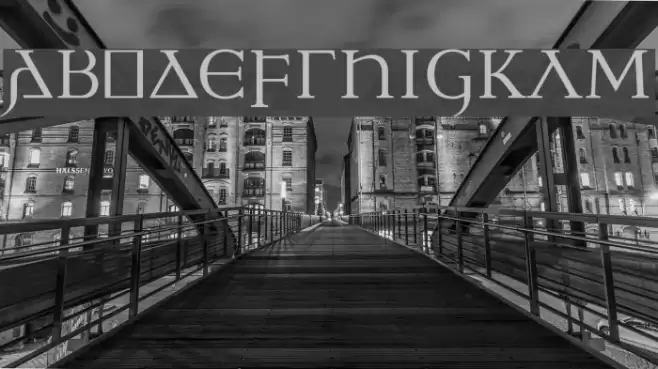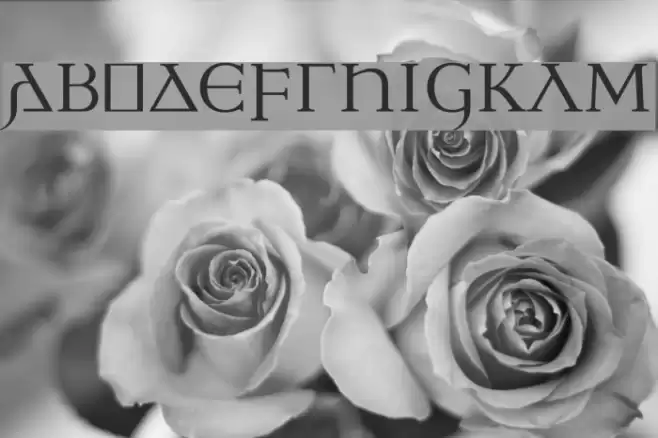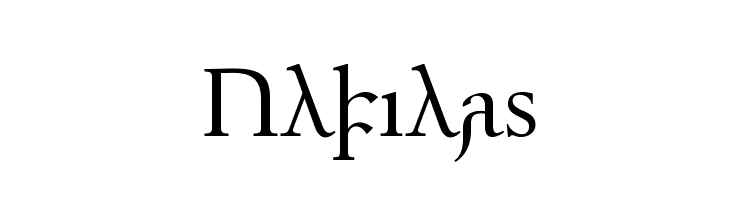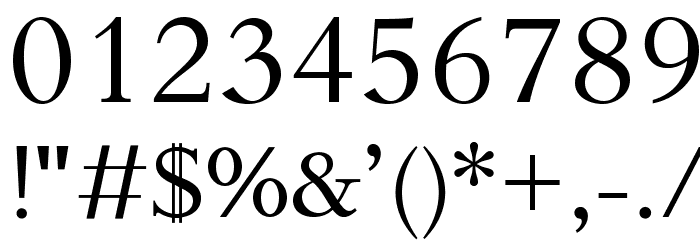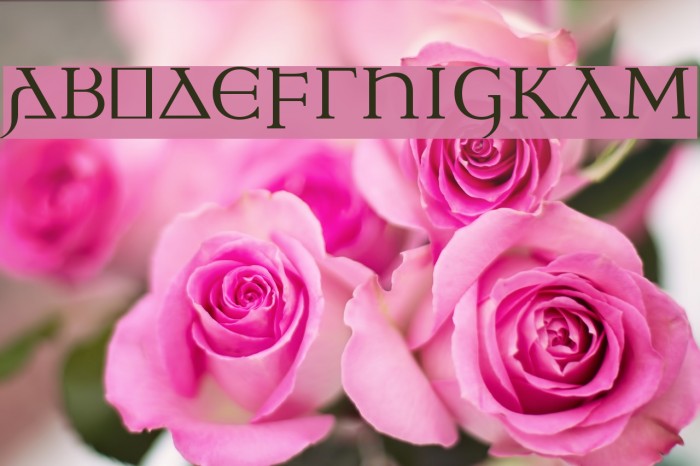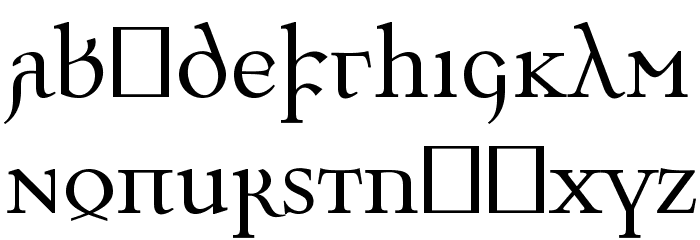
Ulfilas Font
Ulfilas Description
This font features a unique blend of ancient and modern design elements, characterized by its angular and geometric shapes. The uppercase letters exhibit a distinct Gothic influence, with sharp edges and pronounced serifs that give it a historic feel. The lowercase letters maintain a consistent style, with a slightly more rounded approach, providing a harmonious balance. Numerals are bold and clear, ensuring readability. Special characters are intricately designed, adding to the font's decorative appeal. Overall, this font stands out with its bold presence and artistic flair, making it suitable for projects that require a touch of historical elegance.
A Gothic-inspired font with angular shapes and pronounced serifs from Uncategorized fonts.
- Proposed Projects: Ideal for historical documents, themed posters, book covers, and branding that requires a classic yet artistic touch.
- Overall Style: Vintage